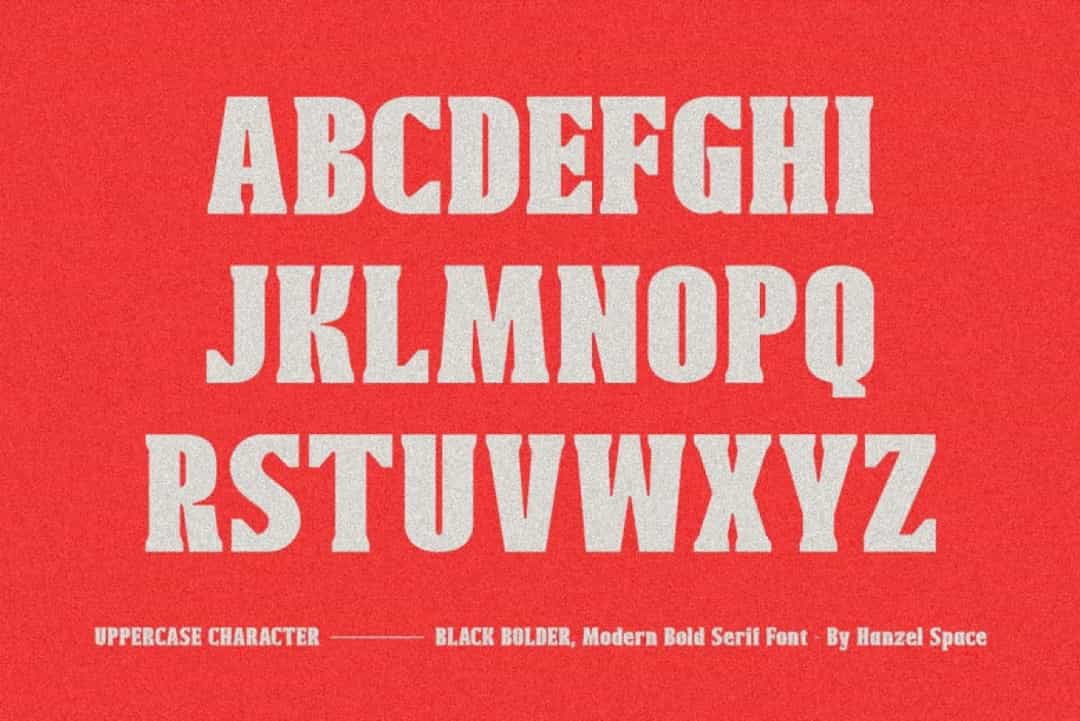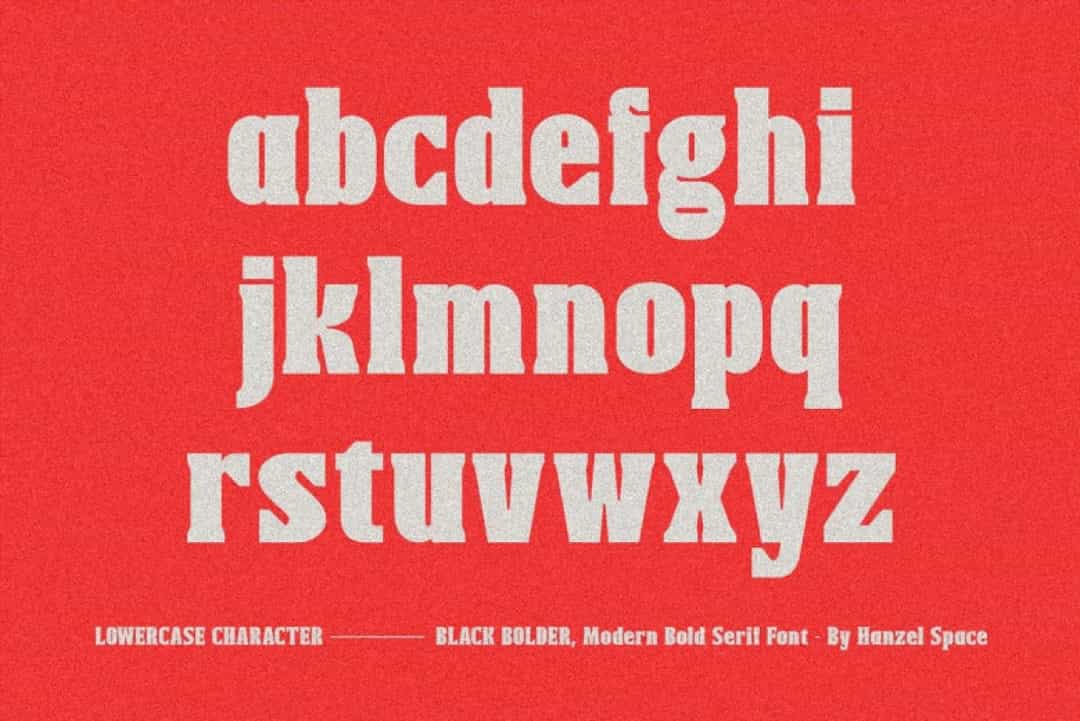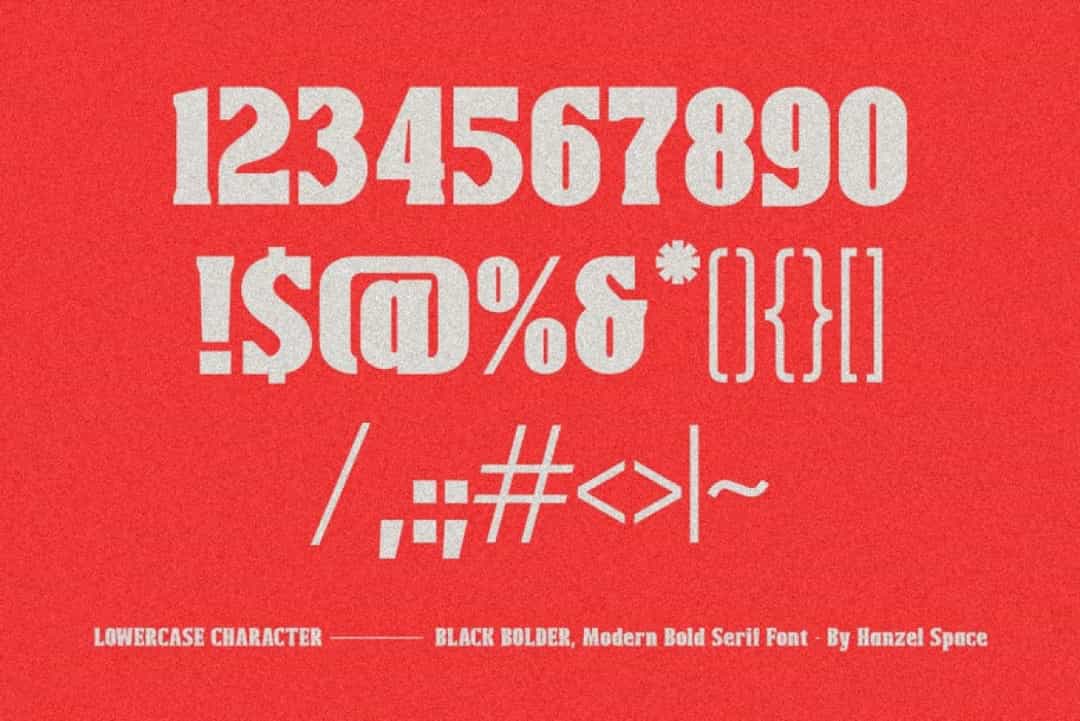
Black Bolder font creates an impactful and confident first impression. These fonts tend to be large and bold with easy readability; ideal for logos, titles labels, brand names, advertisements or magazines. Applying this font easily to business solutions.